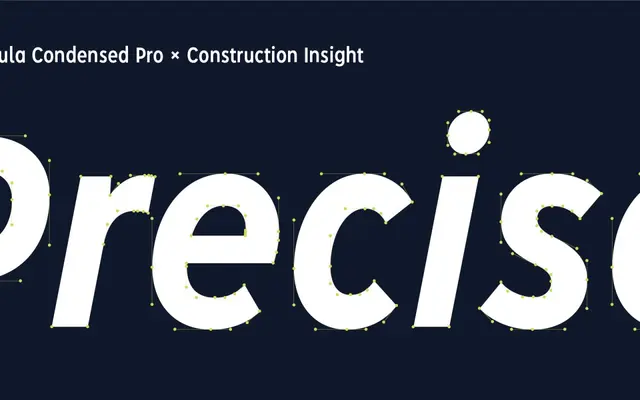
Albula Condensed Pro
Serpentype · Silvio Meier
A condensed geometric sans by Silvio Meier, offering nine weights with obliques for branding, packaging and signage where space is tight.
Part of the broader Albula family, this condensed variant retains the original's sharp terminals and geometric construction while narrowing proportions for compact applications. Nine weights from Thin to Extra Bold each come with a matching oblique, and four stylistic sets offer alternate forms for characters including A, N, M and a double-storey lowercase a. Suited to narrow text columns, spreadsheets and display settings alike, with legibility cited as a guiding concern throughout its development.
Described explicitly as a condensed geometric sans, derived from basic geometric forms with sharp terminals and open forms, in the tradition of geometric sans-serif design.